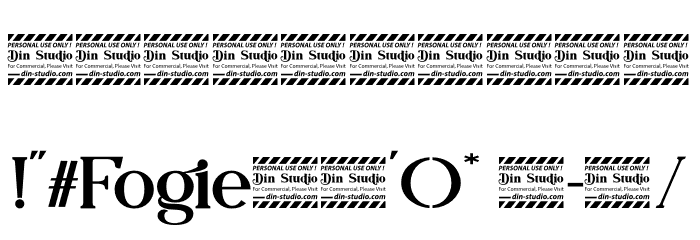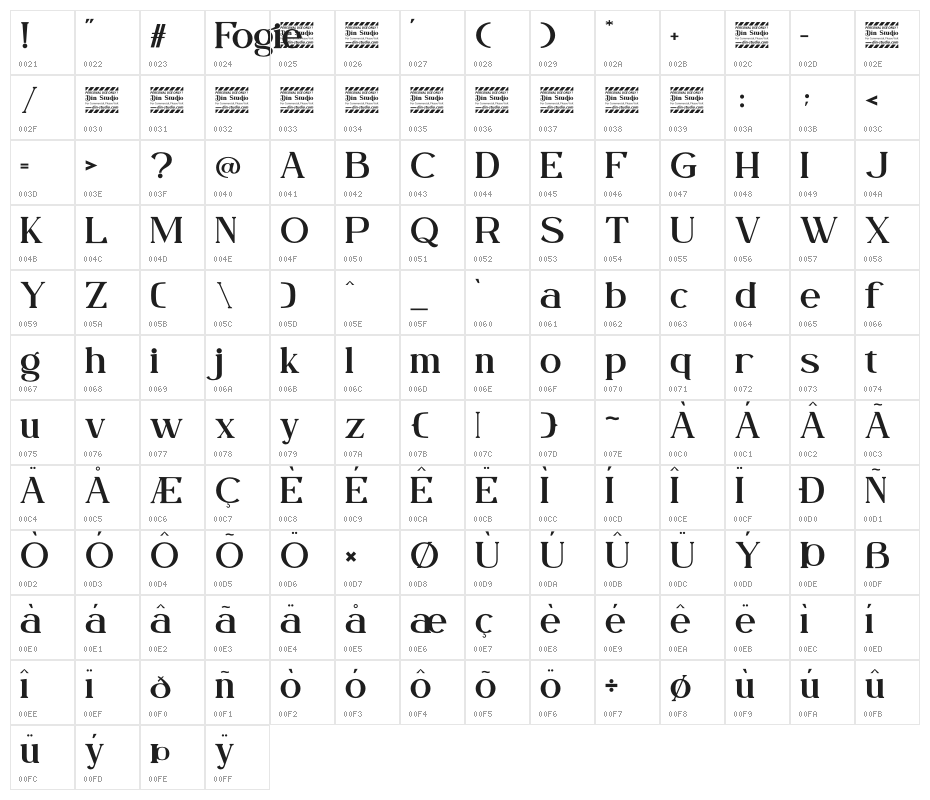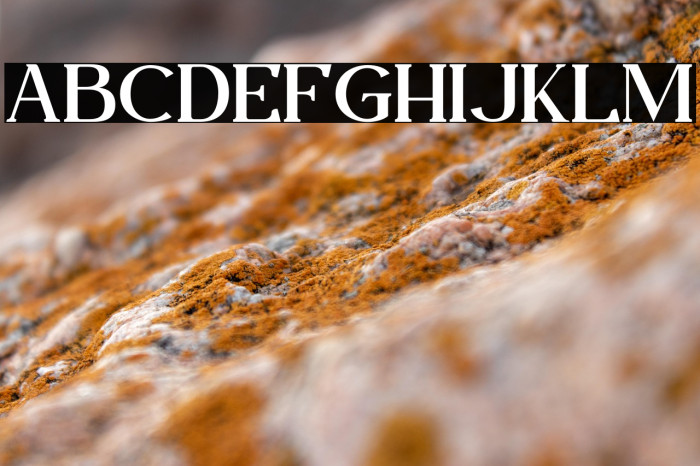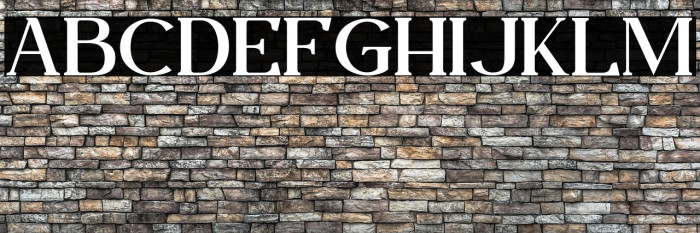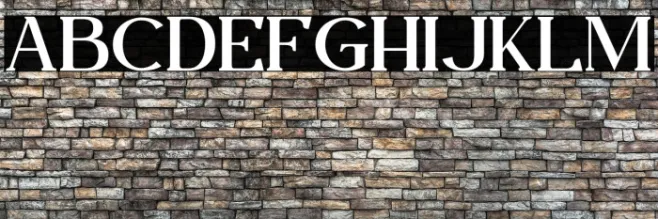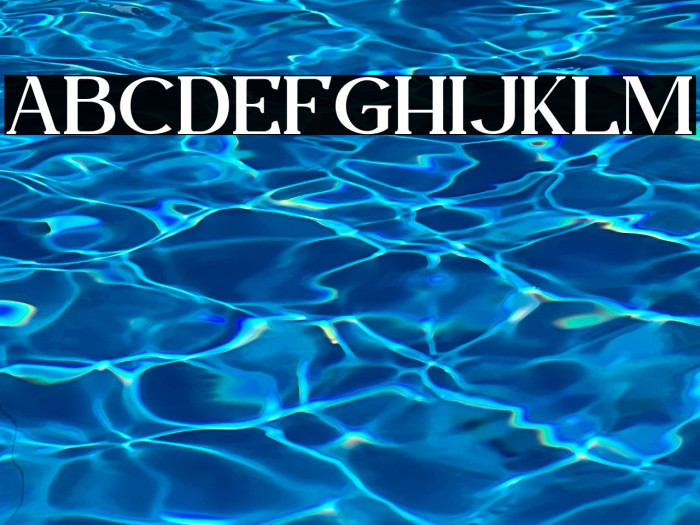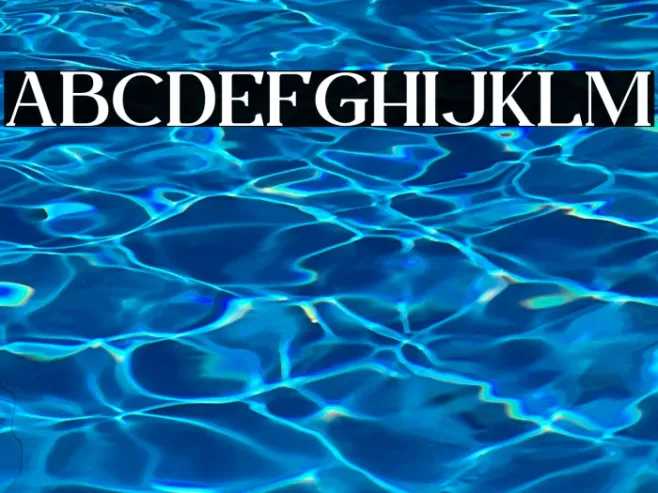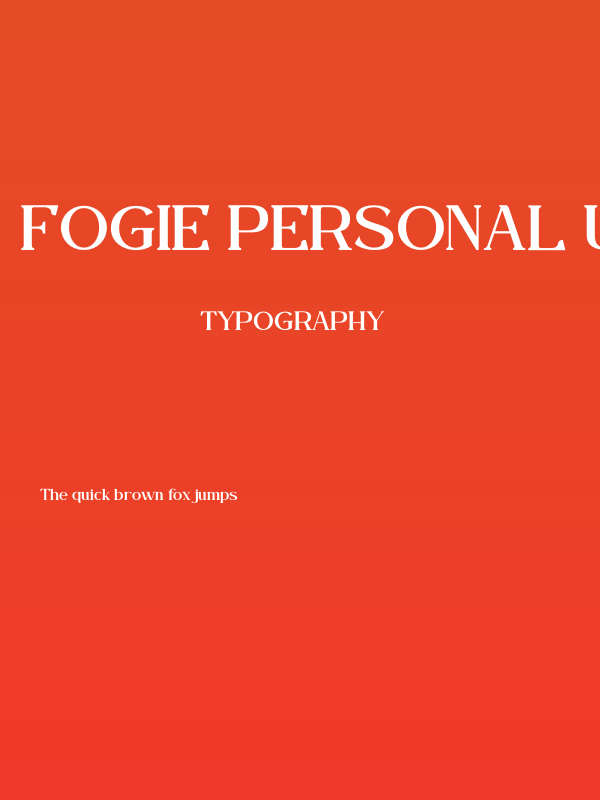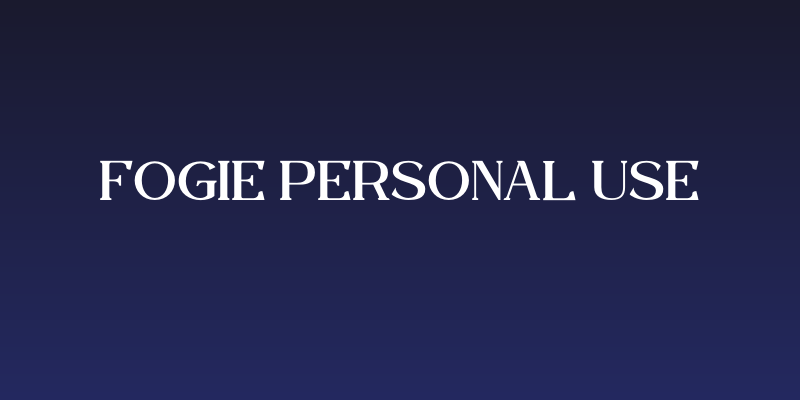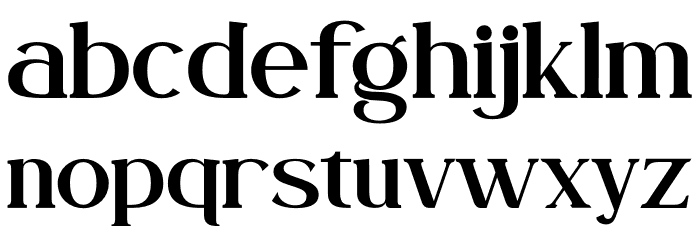
Fogie Personal Use Font
Fogie Personal Use Description
This font features a classic serif style with elegant, sharp serifs and a balanced proportion between thick and thin strokes. The uppercase letters exhibit a traditional and authoritative presence, while the lowercase letters maintain readability with a slightly modern twist. The numerals are consistent with the overall style, providing clarity and sophistication. Special characters are designed to complement the alphabet, maintaining the font's cohesive appearance. The overall design is suitable for formal and professional applications, offering a timeless aesthetic.
| Proposed Projects | Ideal for editorial design, book covers, formal invitations, and branding projects requiring a classic and sophisticated look. |